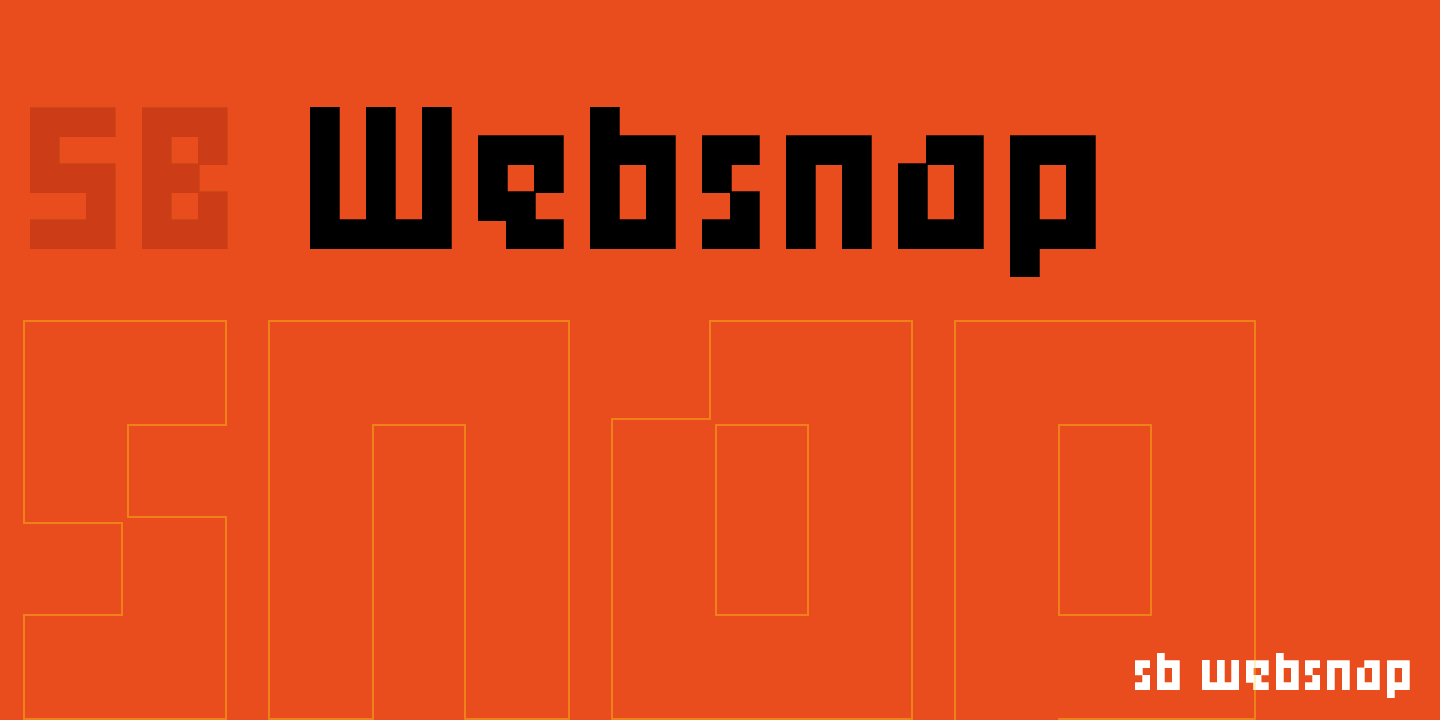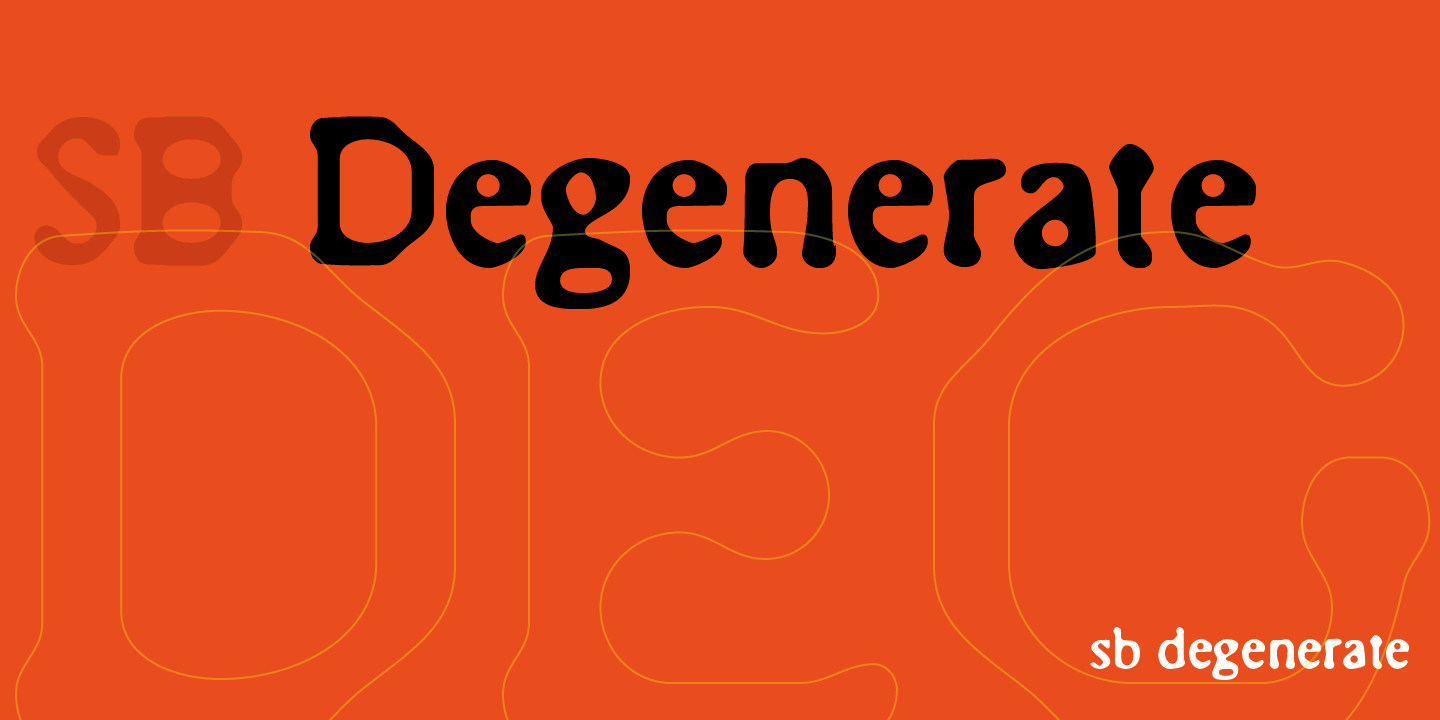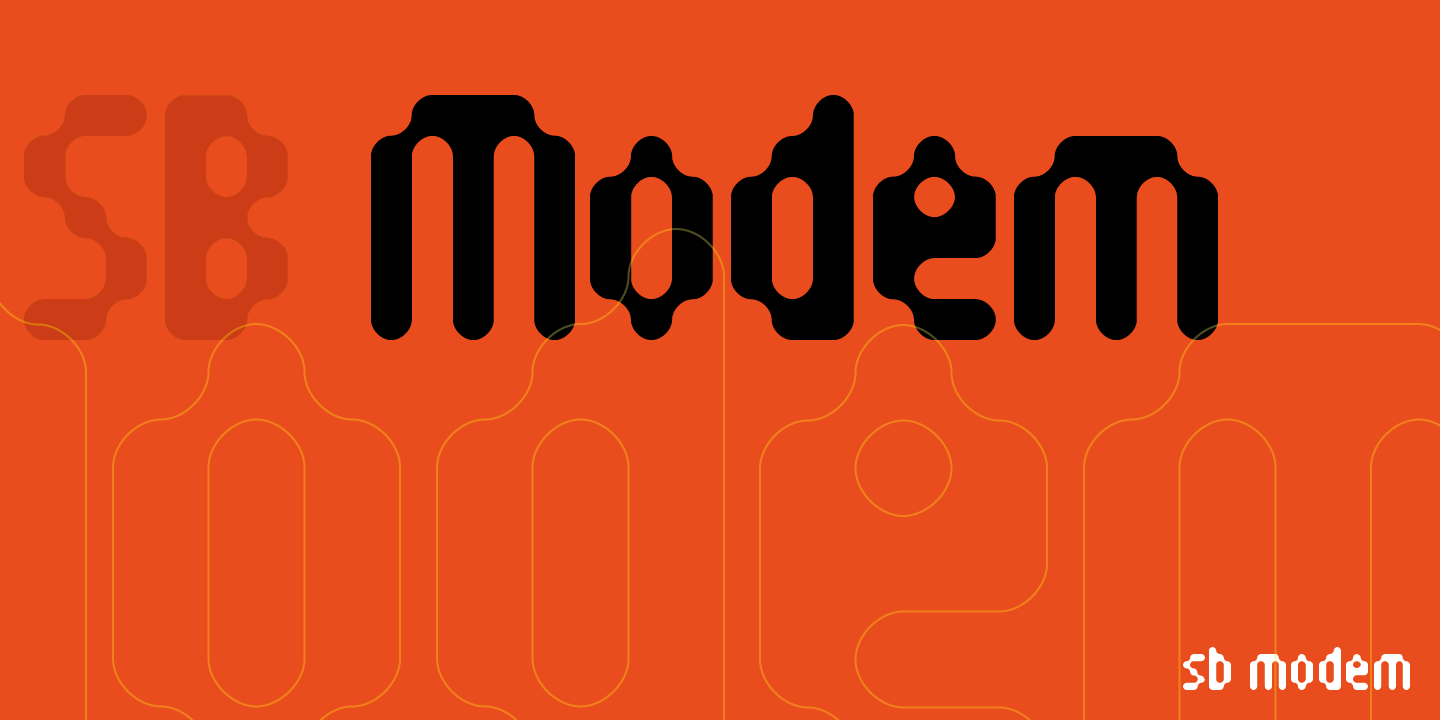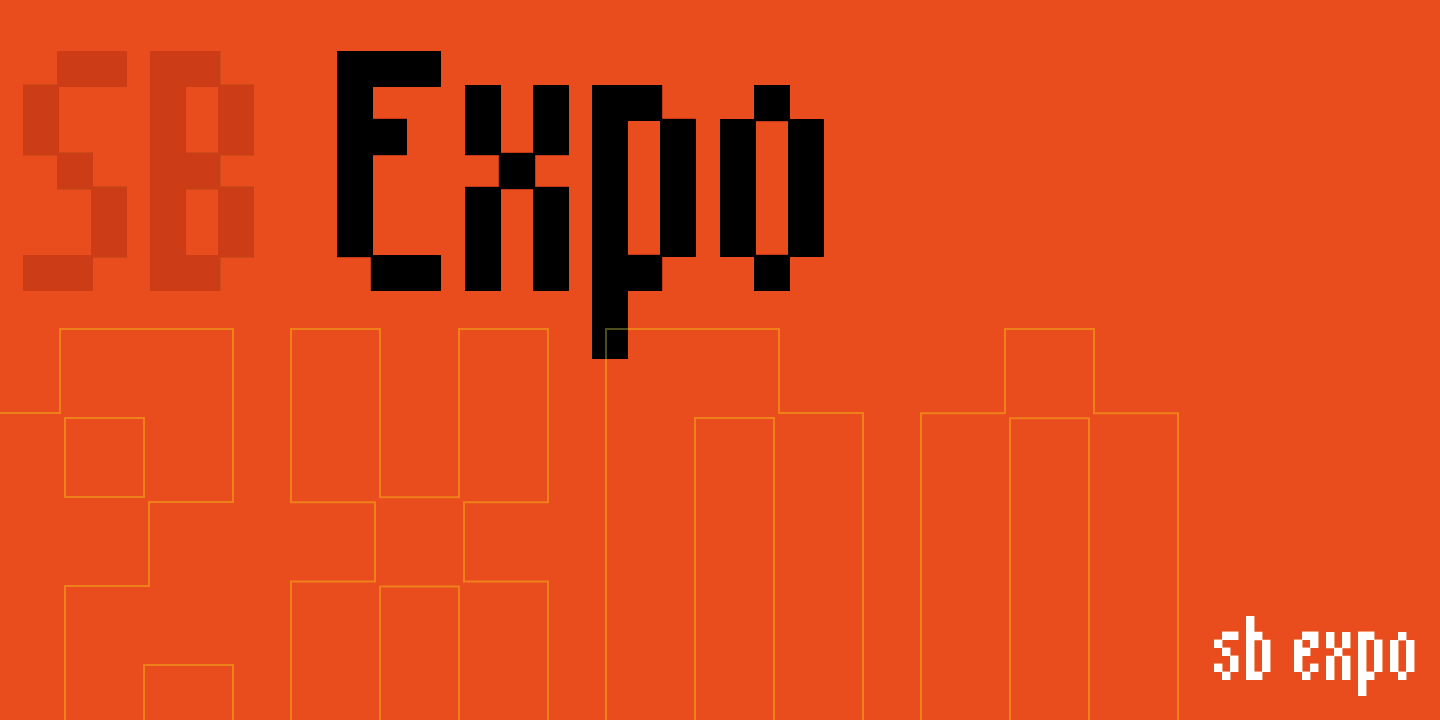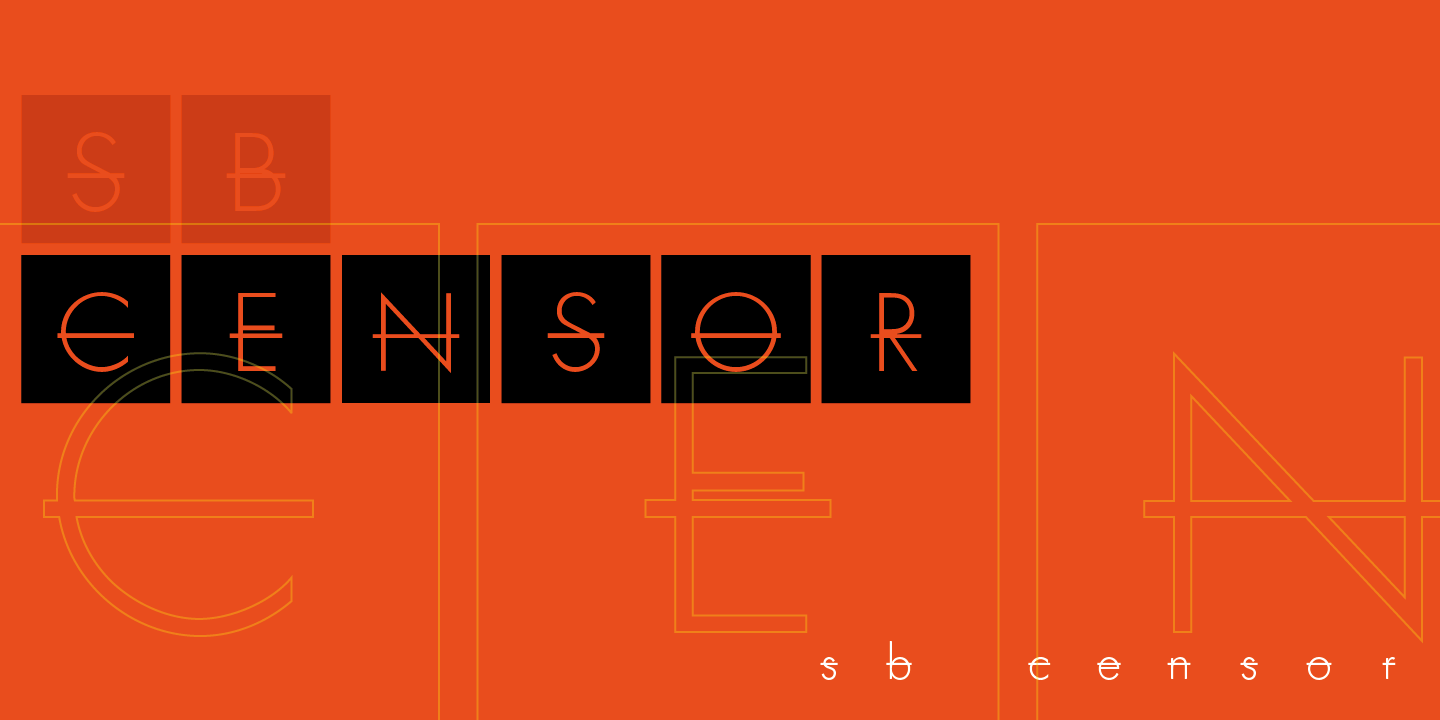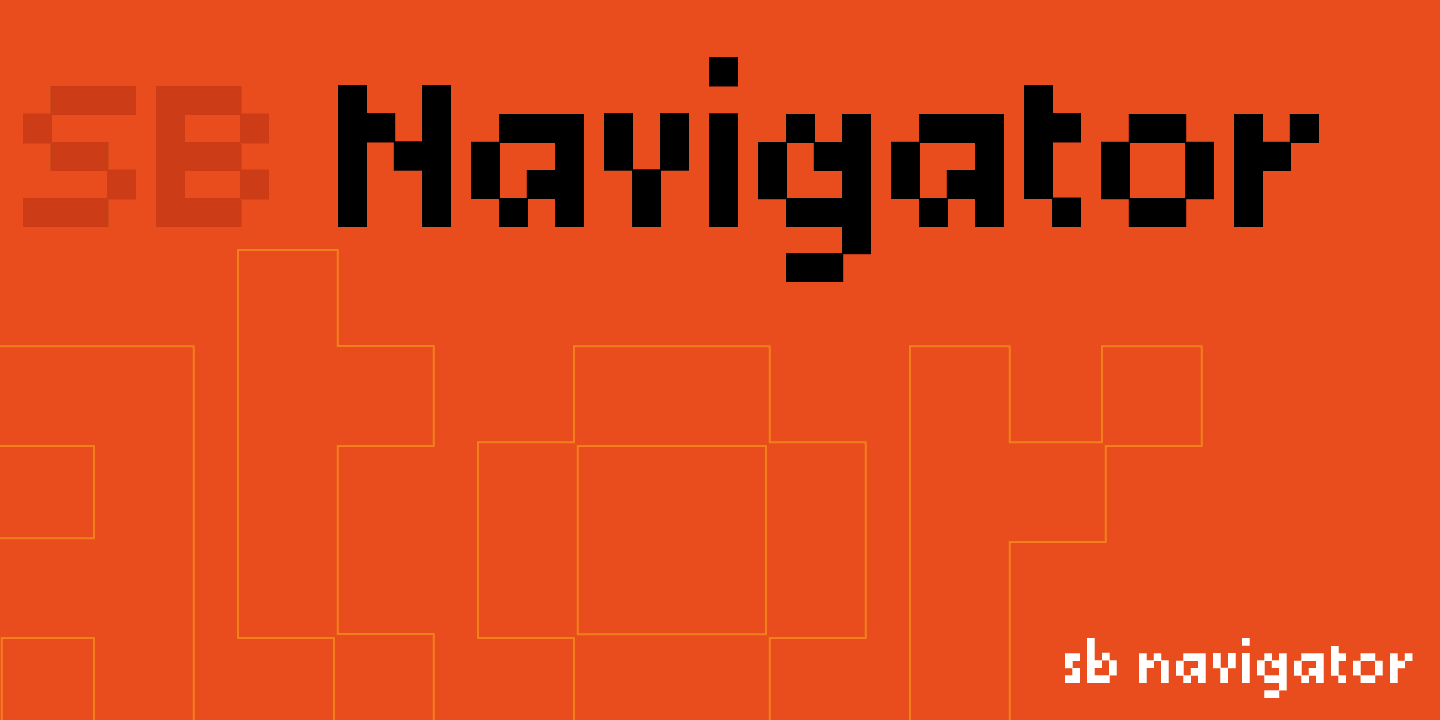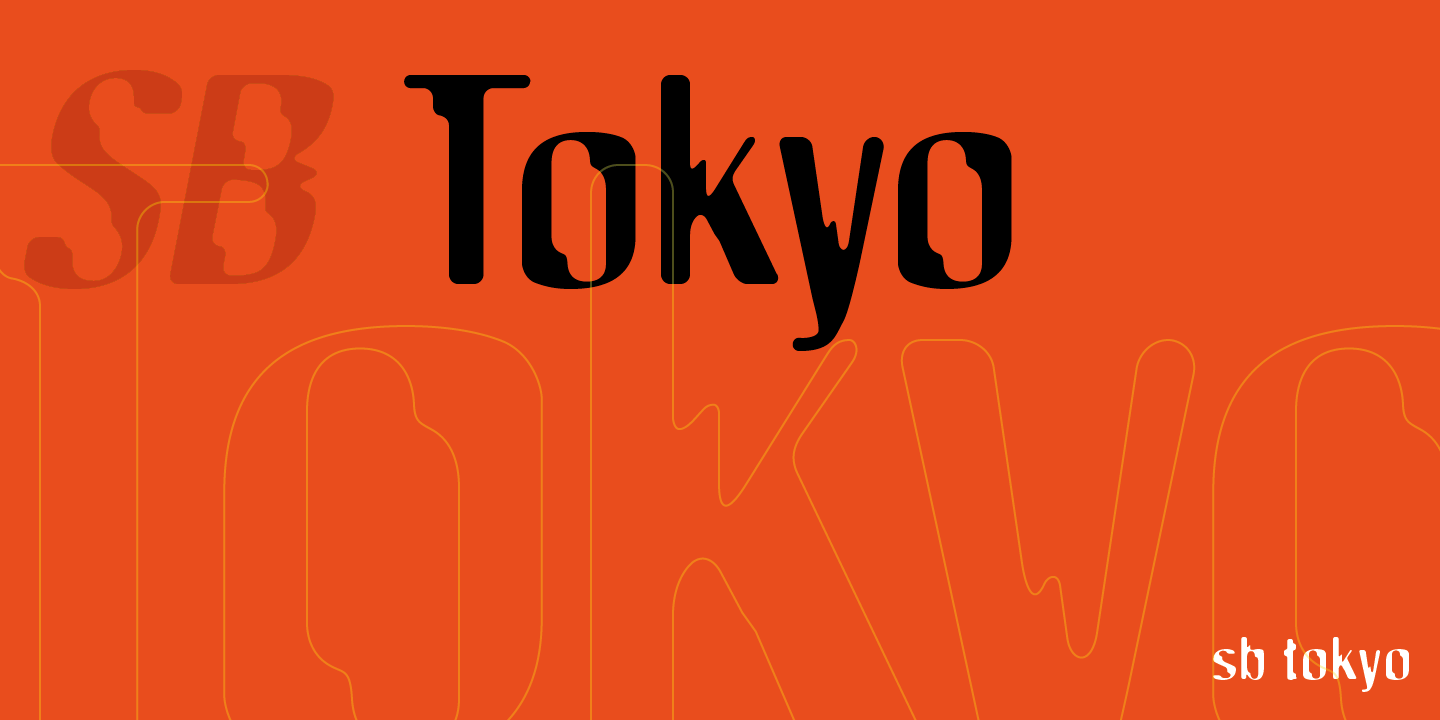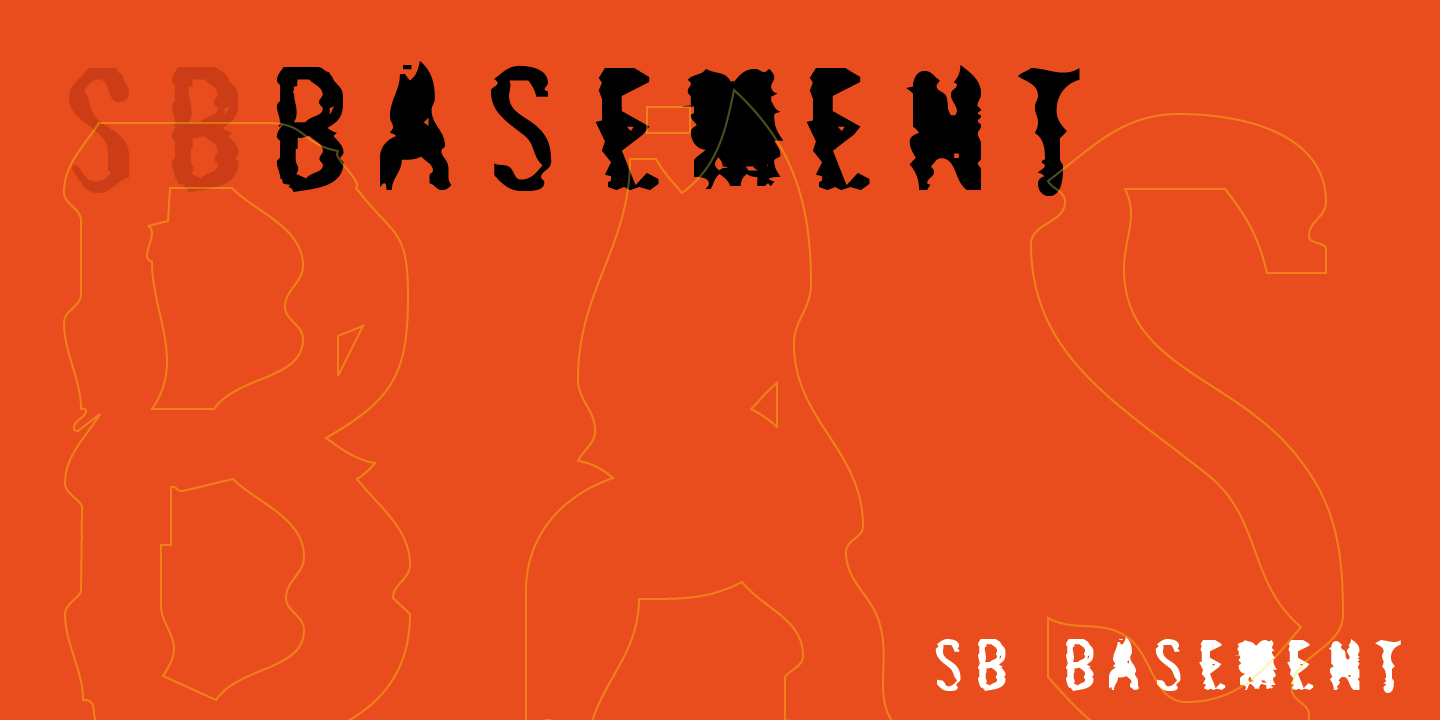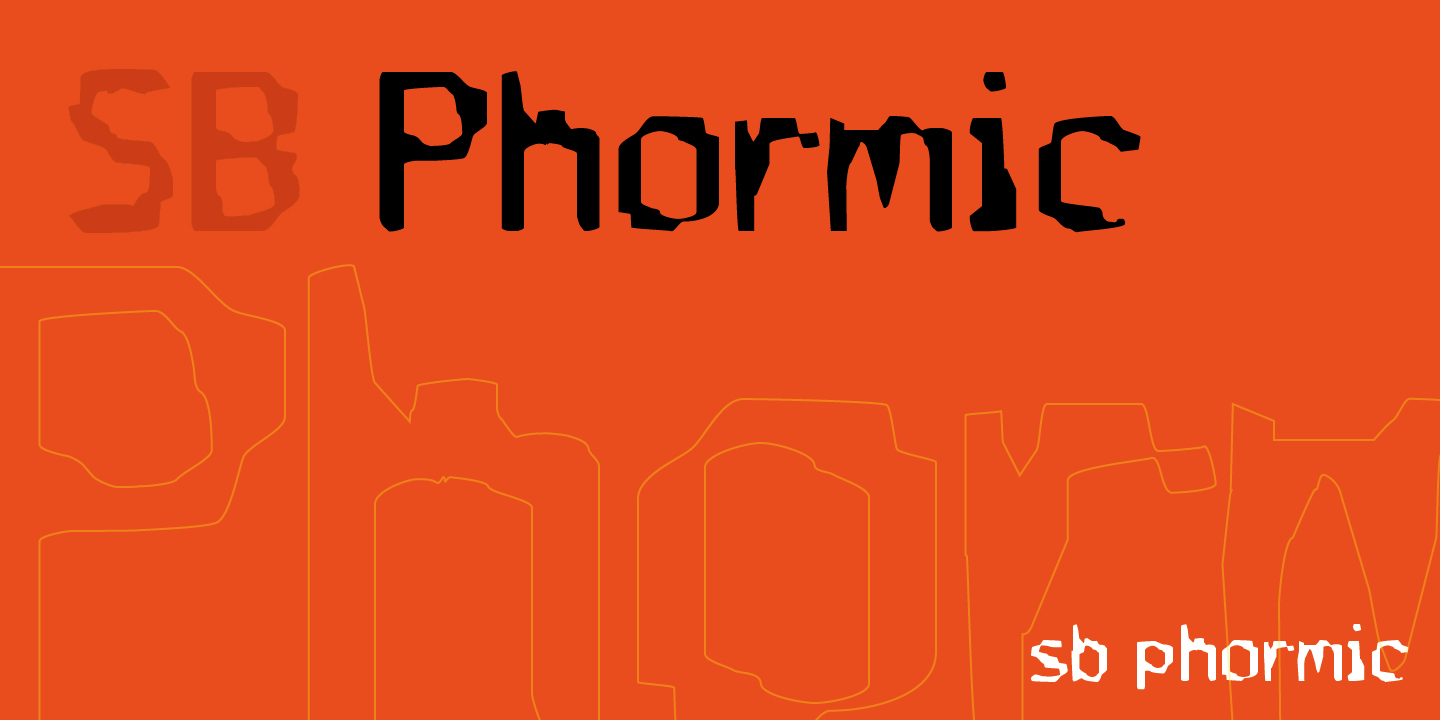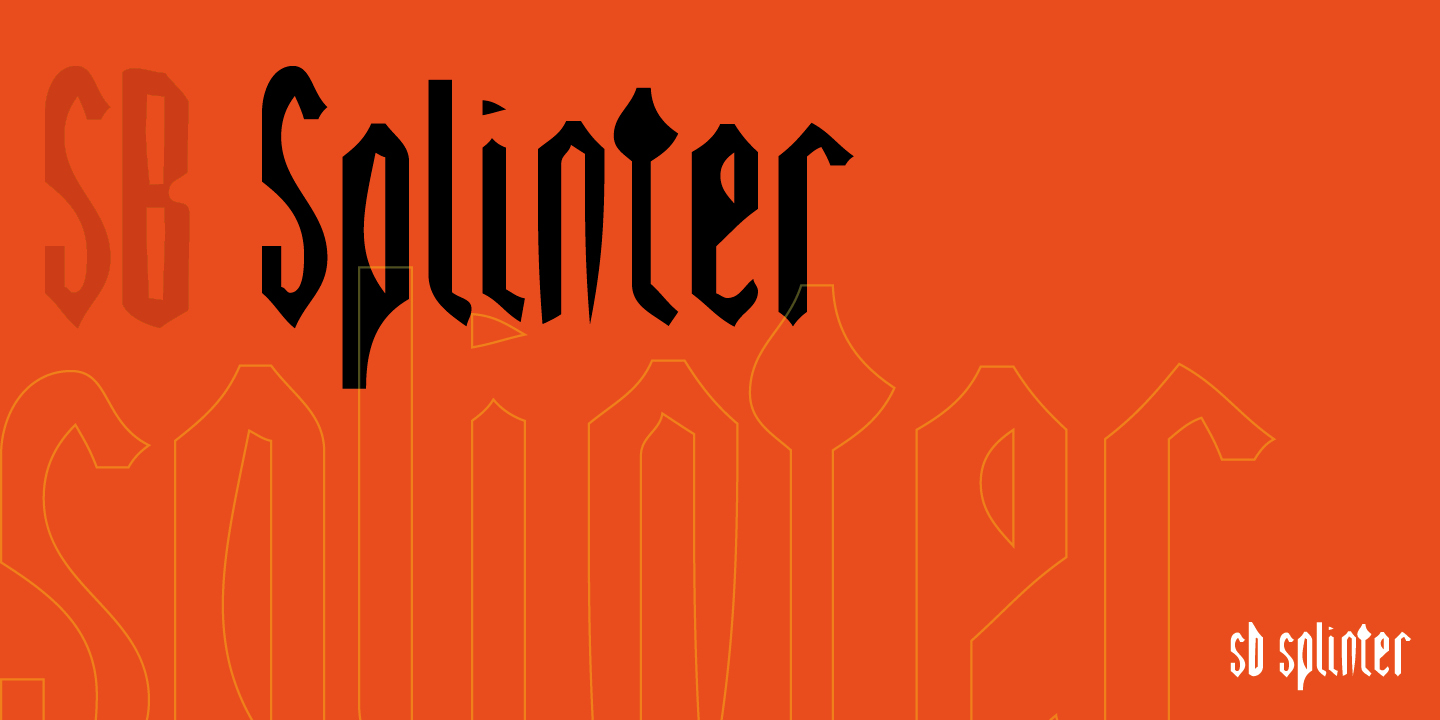
The year 1994 was the year zero of digital typographic experimentation in the same way that 1988 had been for homemade electronic music. At this time a mass democratization of the typographic means of production was under way; the visual equivalent to the late-Eighties Acid House boom that came before it. Although the technology was slow and the screens were low-resolution by today’s standards, the new tools provided a gateway for a new wave of young digital subversives, who took the DIY attitude of the techno music of the day and applied it to type design, creating designs that were often unconventional and, at times, iconoclastic.
These designs were often heavily informed by the “pixels and postscript” aesthetic inherent in the new digital medium as designers experimented with the software that had only recently become available to them. As one of a new breed of independent type foundries, SelfBuild Type took inspiration from the sample-and-remix culture that existed in electronic music at the time. A product of low-power CPUs, low-resolution monitors and the often wildly inaccurate FreeHand autotrace, these typefaces spoke a typographic dialect that referenced retro-futurism and cheap consumer electronics, drawing influence from sources as diverse as graffiti, early video games and found printed ephemera.
As the decade progressed, and as a fledgling Internet started to take flight, SelfBuild Type began to publish pixel fonts to satisfy the need for type that was legible on the computer displays of the time, as the Internet matured from an awkward cacophony of flaming logos and blinking type, into a space where graphic design truly mattered. Today, SelfBuild Type Foundry continues to publish type designs that fuse the typographic experimentation of the past with the ever changing digital aesthetic of the present, for a new generation of graphic designers.